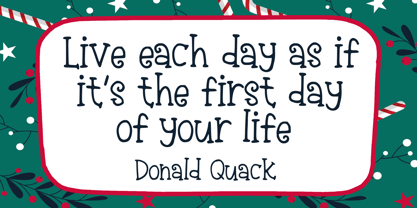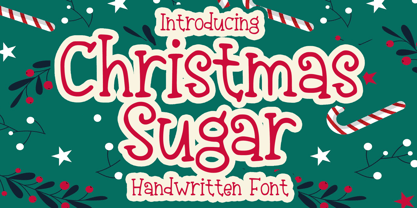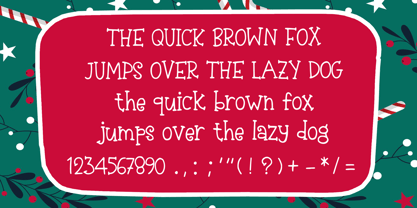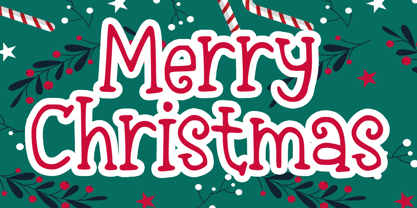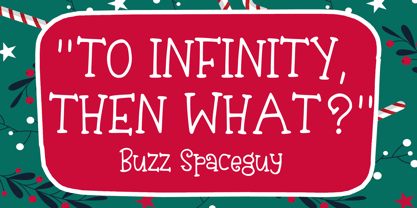
Christmas Sugar
by Mvmet
The Christmas Sugar Font Family was designed by Gabriel Valentinus and published by Mvmet. Christmas Sugar contains 1 styles.
Introducing Christmas Sugar, the playful, handwritten font that infuses your projects with a festive spirit! This versatile font is perfect for adding a touch of fun to any design theme, from Christmas to Easter, school projects and beyond. Its captivating character elevates a vast array of projects, ensuring your designs stand out from the crowd. Explore its potential in varied design elements like vibrant stickers, trendy t-shirt prints, stunning logo concepts, expressive magazine or book covers, whimsical comic book sketches, daily typing tasks and so much more. Christmas Sugar is not just a font, it's a game changer that adds a cool, unique touch to your creative sphere!
Designers: Gabriel Valentinus
Publisher: Mvmet
Foundry: Mvmet
Design Owner: Mvmet